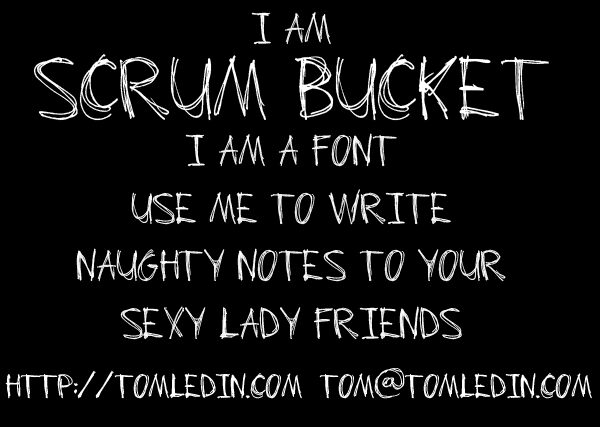
Scrum Bucket by Tom Ledin is a free scratch-drawn display font made from raw, spindly strokes and doubled contours. The tall letters loop, double back, and sprout wiry stray lines.
The rough DIY look belongs comfortably in punk and underground design, especially gig posters, independent record sleeves, and horror-comedy graphics where the lettering can feel handmade, hurried, and slightly unruly. On skate merchandise and event flyers, the repeated overlaps can turn a name into an image of its own, closer to a frantic marker emblem or scrawled wall sign drawn directly into surrounding hand-rendered graphics and illustrations rather than ordinary typesetting.